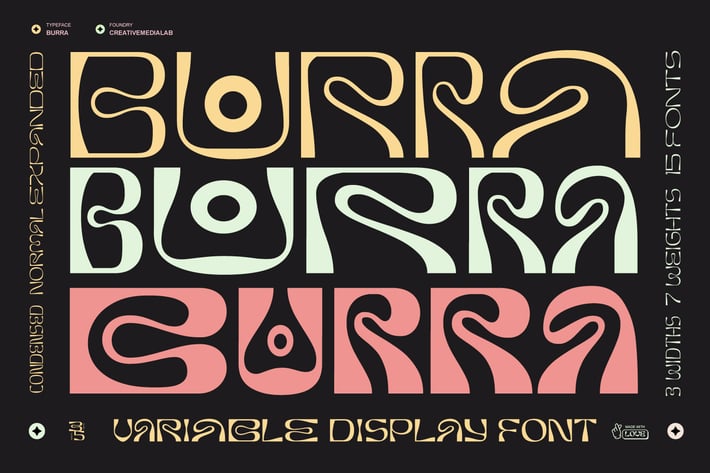
Burra - Psychedelic display font
Introducing Burra, a psychedelic display font.
All capital alphabet with a wavy psychedelic look. Inspired by liquify and water strokes.
Burra Consists of 3 widths and 5 weights on each, a total of 15 fonts.
Burra will add fresh fun vibes to your designs.
All capital alphabet with a wavy psychedelic look. Inspired by liquify and water strokes.
Burra Consists of 3 widths and 5 weights on each, a total of 15 fonts.
Burra will add fresh fun vibes to your designs.